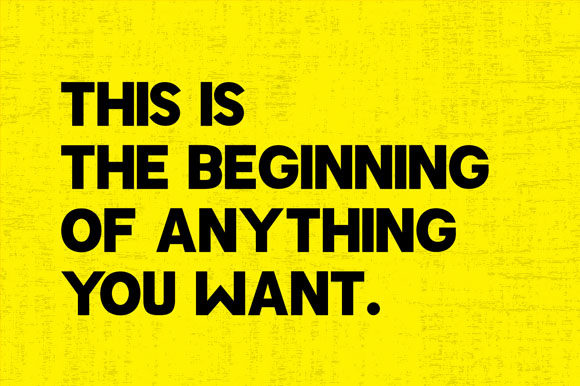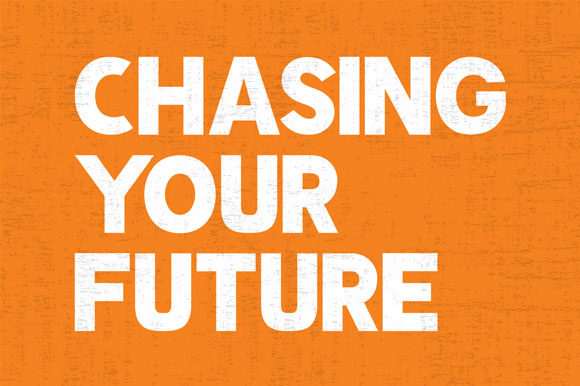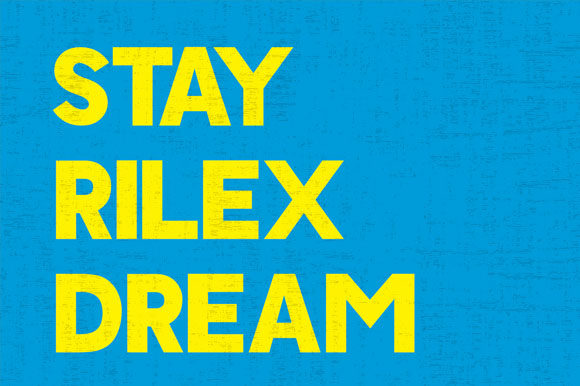
Introduction to Javata Font
Javata is a strong sans serif font.
It features a sophisticated style Whether you’re looking for fonts for Instagram or calligraphy scripts for DIY projects, Javata will turn any creative idea into a true piece of art.
Key Features of Javata Font
Why Choose Javata Font?
Javata Font offers exceptional quality and versatility, making it a valuable addition to your design toolkit. Whether you’re creating for personal projects or commercial use, Javata Font delivers professional results.